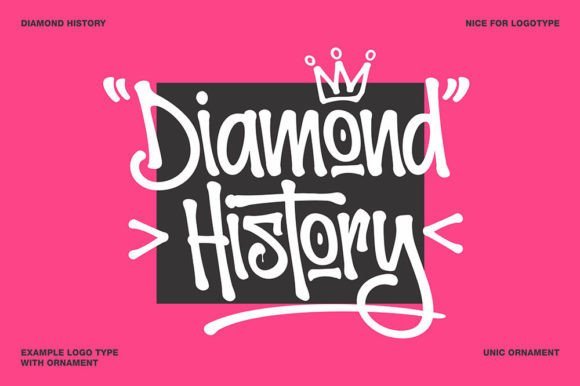
Introduction to Diamond History Font
Diamond History is a cool, graffiti-style display font.
Stylish and trendy, this font is suitable for a large variety of projects that need an urban-inspired accent .
Key Features of Diamond History Font
Why Choose Diamond History Font?
Diamond History Font offers exceptional quality and versatility, making it a valuable addition to your design toolkit. Whether you’re creating for personal projects or commercial use, Diamond History Font delivers professional results.